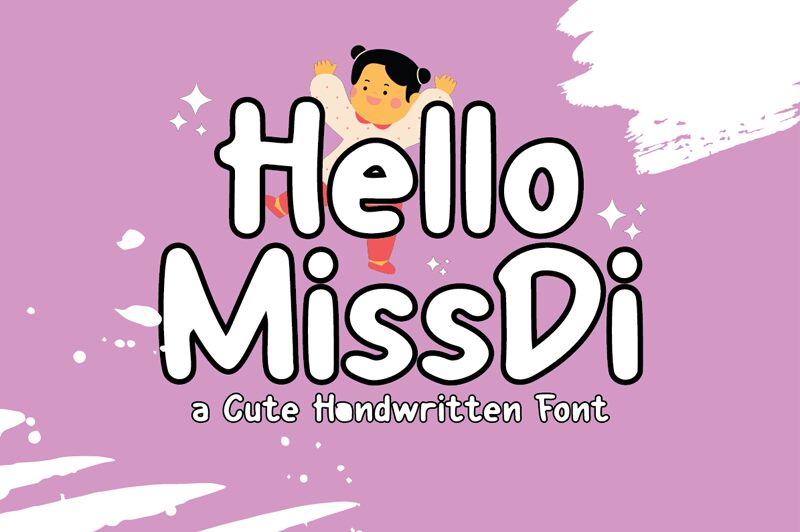
Hello MissDi font by Studio Hello Good is a free cartoon typeface ideal for personal projects. Featuring a playful, friendly style, it captures the essence of whimsy and approachability. Its casual and modern design makes it perfect for projects needing a youthful and inviting touch.
Use this font in children's content, informal branding, book covers, product packaging, invitations, greeting cards, social media graphics, posters, flyers, educational materials, and playful design projects where a fun and approachable feel is needed.